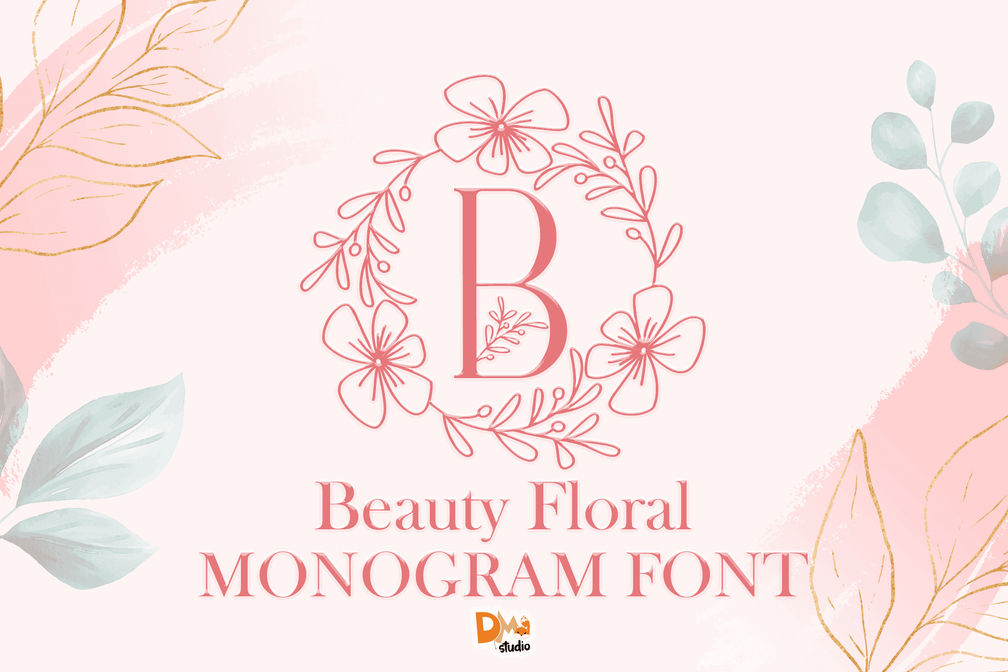
Beauty Floral Monogram
Beauty Floral Monogram – Elegant & Ornamental Monogram Font
Beauty Floral Monogram is a stunning decorative typeface featuring intricate floral embellishments on each letter. Designed for elegance and sophistication, this monogram font is perfect for wedding invitations, luxury branding, boutique packaging, personalized stationery, and artistic projects. Its timeless floral charm adds a refined and graceful touch to any design.
✔ Intricate Floral Design – Each letter is adorned with hand-drawn floral details for a beautifully artistic look.
✔ Ornamental & Timeless Aesthetic – A harmonious blend of floral elegance and intricate craftsmanship.
✔ Complete Character Set – Includes uppercase, lowercase, numbers, punctuation, and multilingual support.